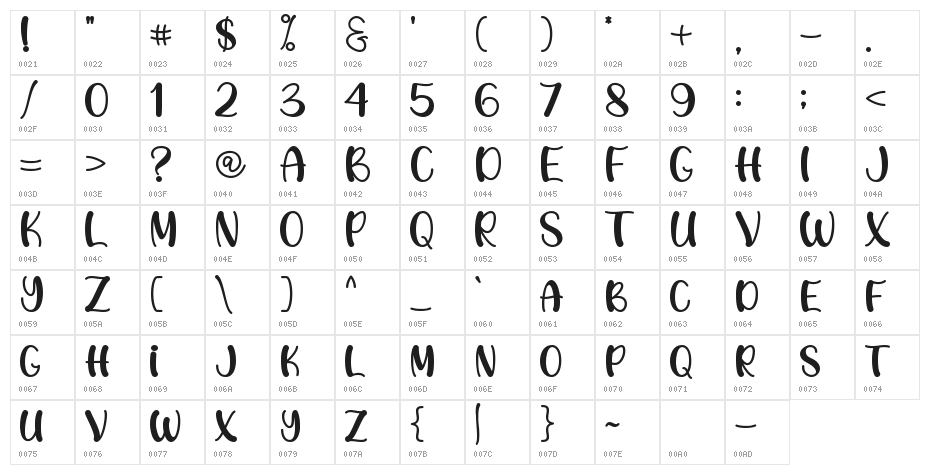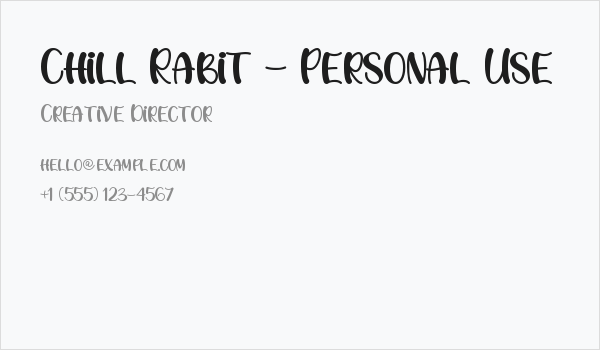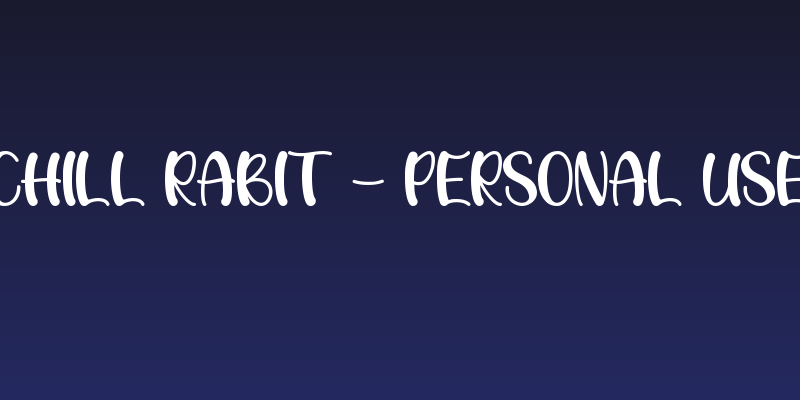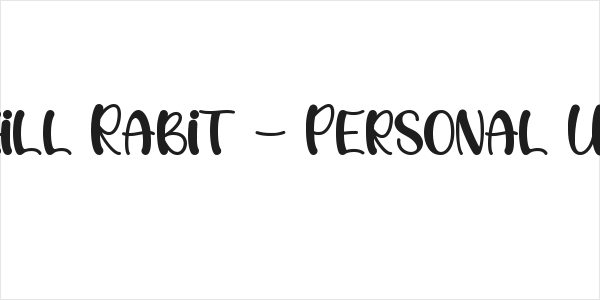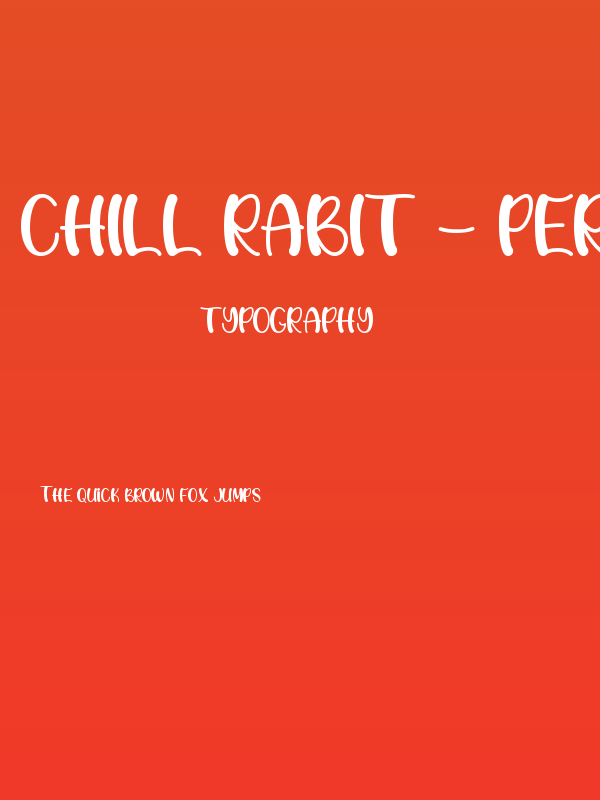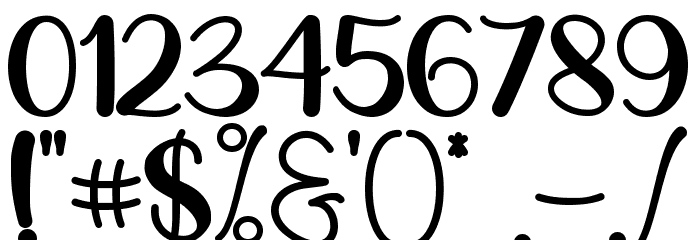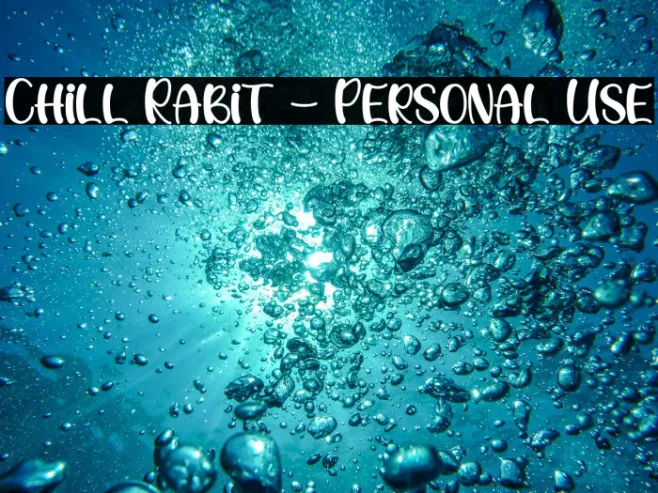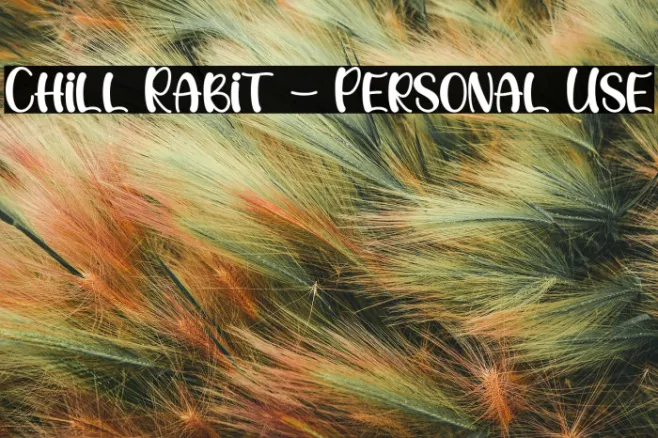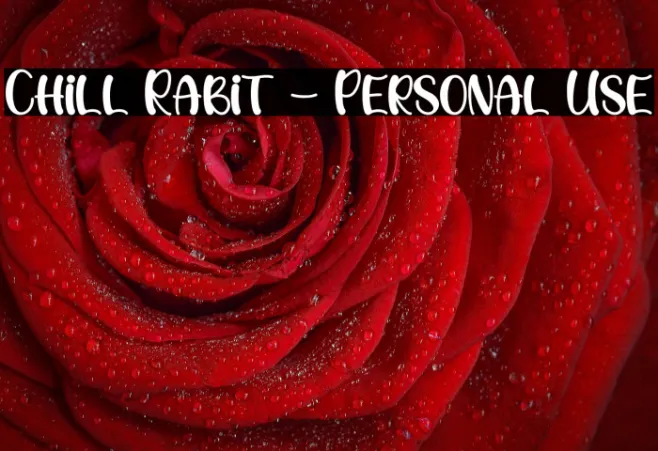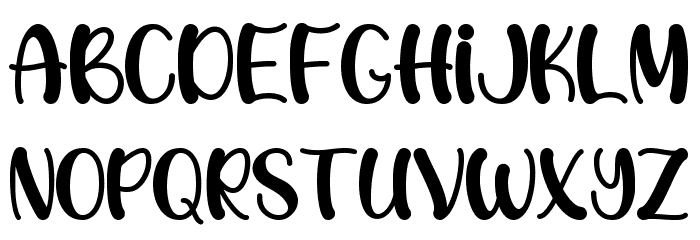
Chill Rabit - Personal Use Font
Chill Rabit - Personal Use Description
This font features a playful and whimsical style with a handwritten appearance. The characters are bold and rounded, giving off a friendly and approachable vibe. The uppercase and lowercase letters maintain a consistent flow, with smooth curves and a slight slant, adding to the casual feel. The numbers and special characters are equally expressive, maintaining the same boldness and rounded edges. This font is perfect for projects that require a personal touch or a fun, informal look.
| Use Case | Logos, Headlines, Social media graphics |
| Proposed Projects | Ideal for greeting cards, children's books, playful branding, and social media graphics. |